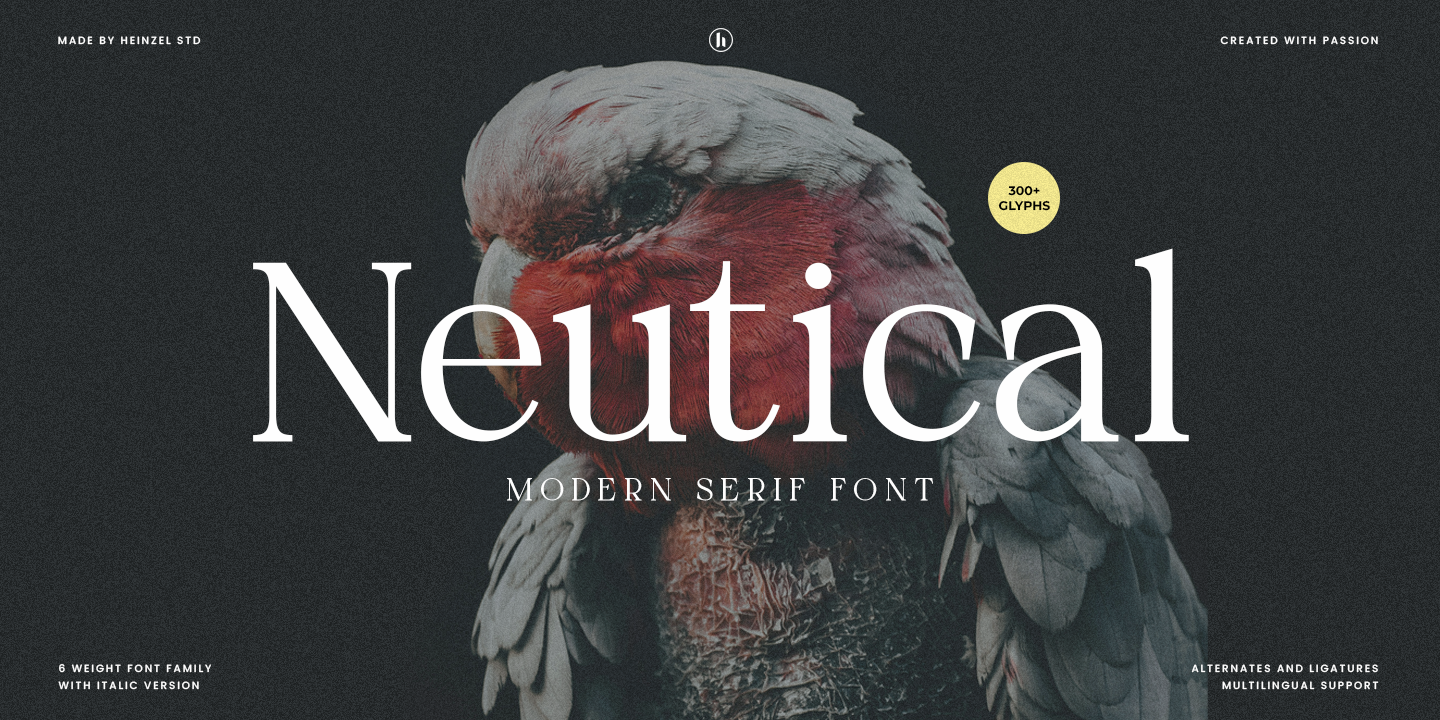
Neutical Font is perfect for maritime branding, sailing club materials, coastal tourism campaigns, marine equipment packaging, nautical chart displays, harbor signage, boat manufacturer logos, ocean conservation materials, yacht club communications, and seafaring adventure promotions.
Neutical Font is exciting because it captures the spirit of maritime adventure with its flowing, wave-inspired letterforms that evoke the rhythmic motion of ocean currents and the timeless appeal of nautical tradition. Its distinctive character design reflects both the freedom of open waters and the precision required for safe navigation, making it perfect for brands seeking to convey adventure, reliability, and maritime expertise.
Neutical Font family includes light, regular, medium, bold, and black weights, each with corresponding italic versions. The font family also features maritime symbols, compass-inspired ornaments, nautical ligatures, and ocean-themed decorative elements that enhance its seafaring aesthetic and versatility.
This maritime-inspired typeface represents the perfect fusion of oceanic aesthetics and functional design. Neutical Font Free Download enables designers to explore its nautical possibilities before making a commercial commitment. The font's ability to convey both adventure and reliability makes it ideal for brands targeting maritime enthusiasts and coastal lifestyle markets.
Whether you're developing sailing equipment branding, creating coastal tourism materials, or designing marine conservation campaigns, Neutical Font brings an unmistakable sense of oceanic authenticity to every project. Its flowing character and maritime heritage create visual connections that resonate with audiences passionate about water sports and coastal living.
The font's versatility excels in maritime and coastal environments where adventure and tradition are equally valued. Its nautical character makes it particularly effective for sailing clubs, marine equipment manufacturers, coastal resorts, and ocean conservation organizations seeking to establish authentic connections with water-loving communities.
For designers working on projects requiring authentic maritime character and oceanic appeal, Neutical Font offers an exceptional solution. Its nautical heritage and comprehensive maritime elements provide the tools needed for engaging seafaring communications, while its adventurous spirit ensures your designs capture the excitement and freedom of life on the water.